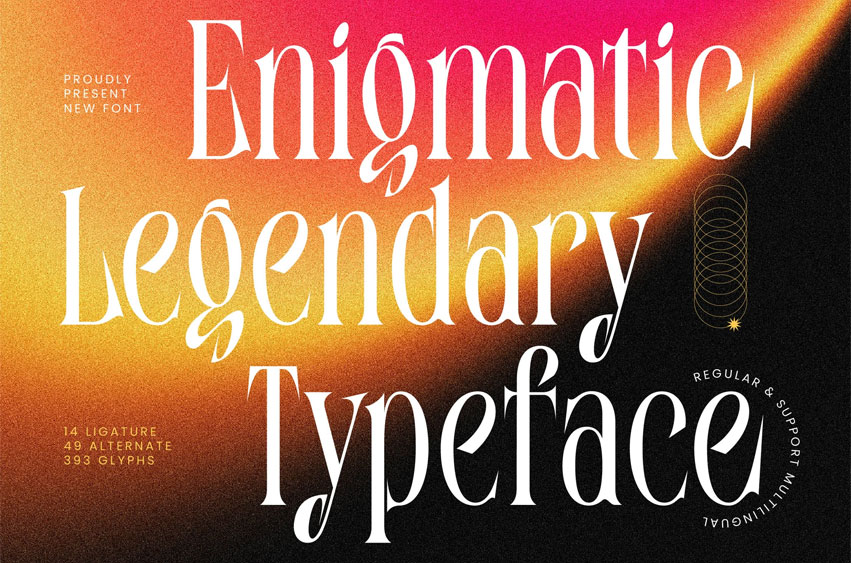
Enigmatic Legendary Font is a modern high-contrast serif crafted for designers who want a dramatic and sophisticated visual impact. Its elongated forms, sharp curves, and expressive alternates make it ideal for editorial headlines, luxury branding, posters, and striking typographic compositions. Featuring 14 ligatures, 49 alternates, and 393 glyphs, this typeface brings versatility and artistic refinement to every project.
Perfect for bold storytelling, premium layouts, and contemporary design work that needs elegance with attitude.
- Uppercase and lowercase
- Numbering and Punctuation